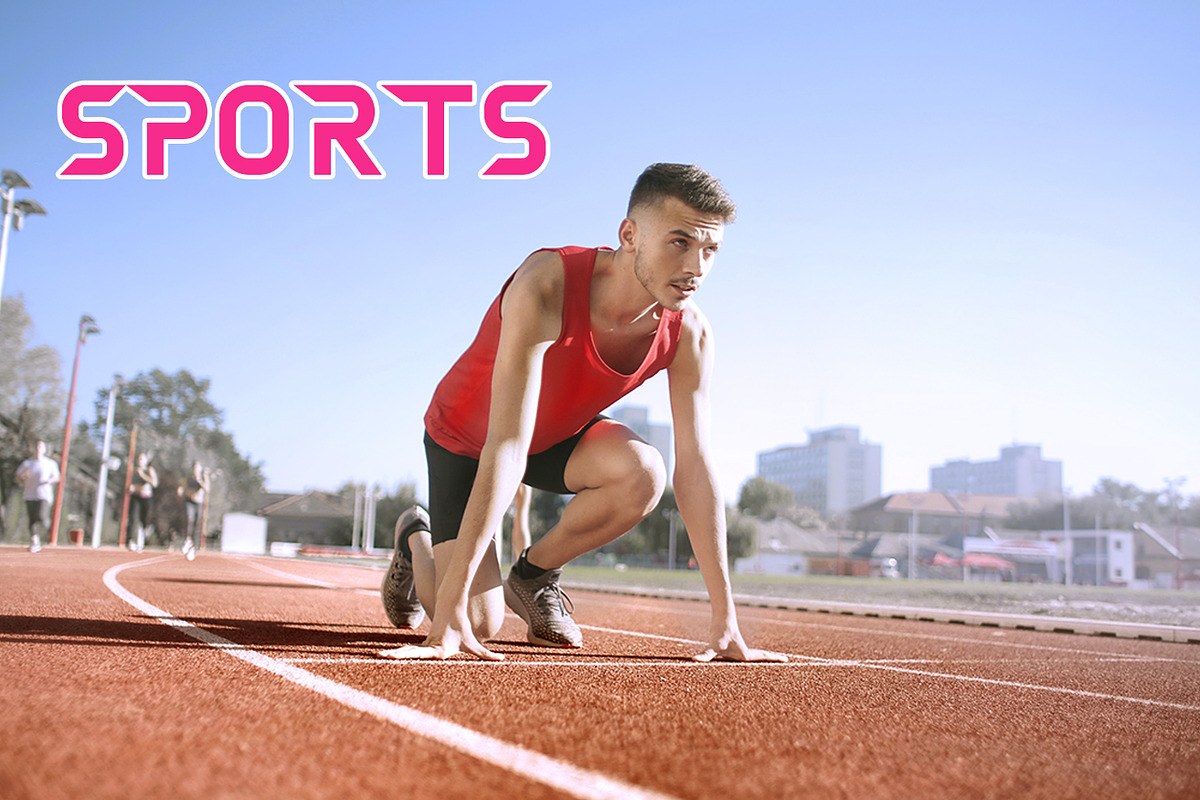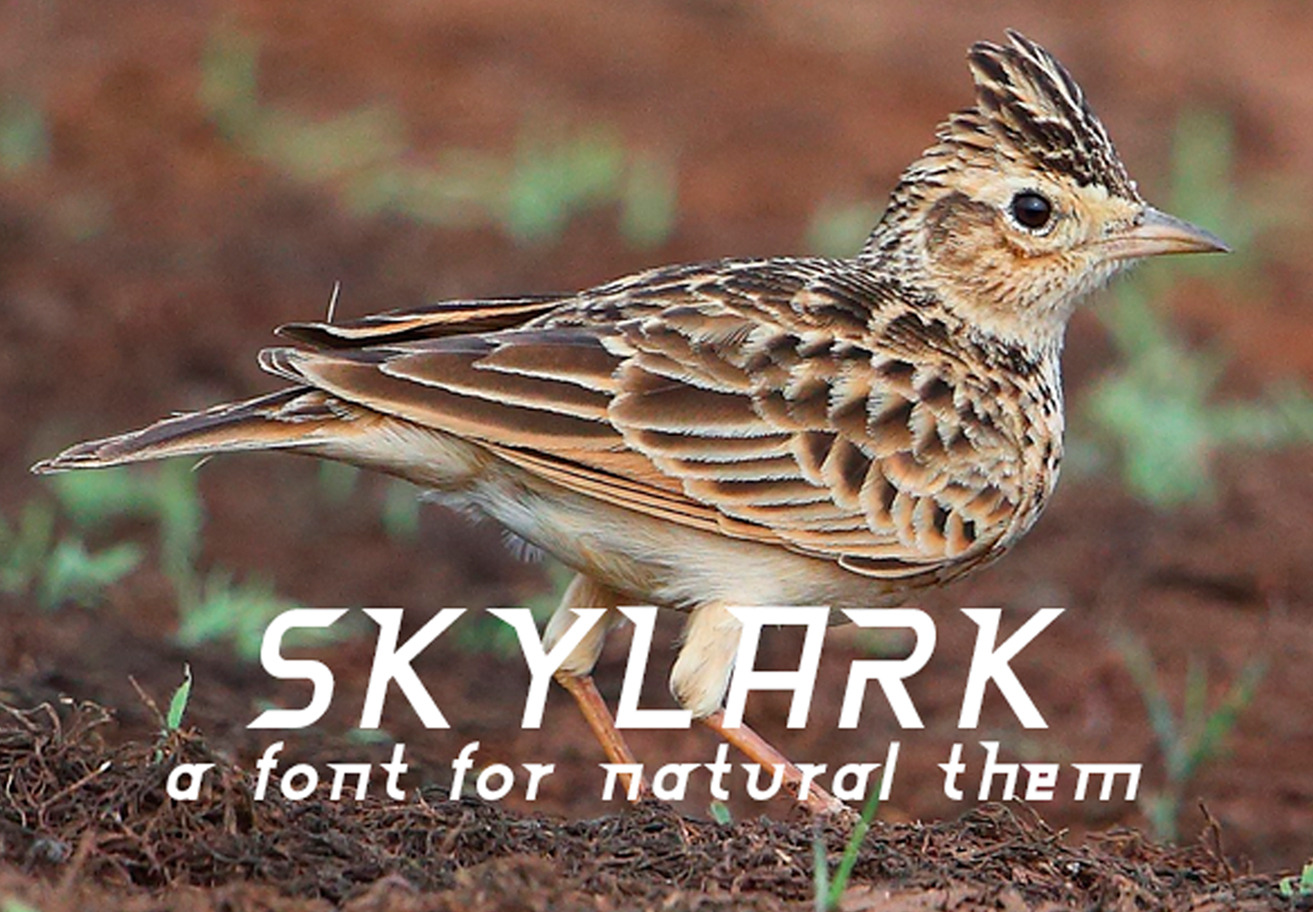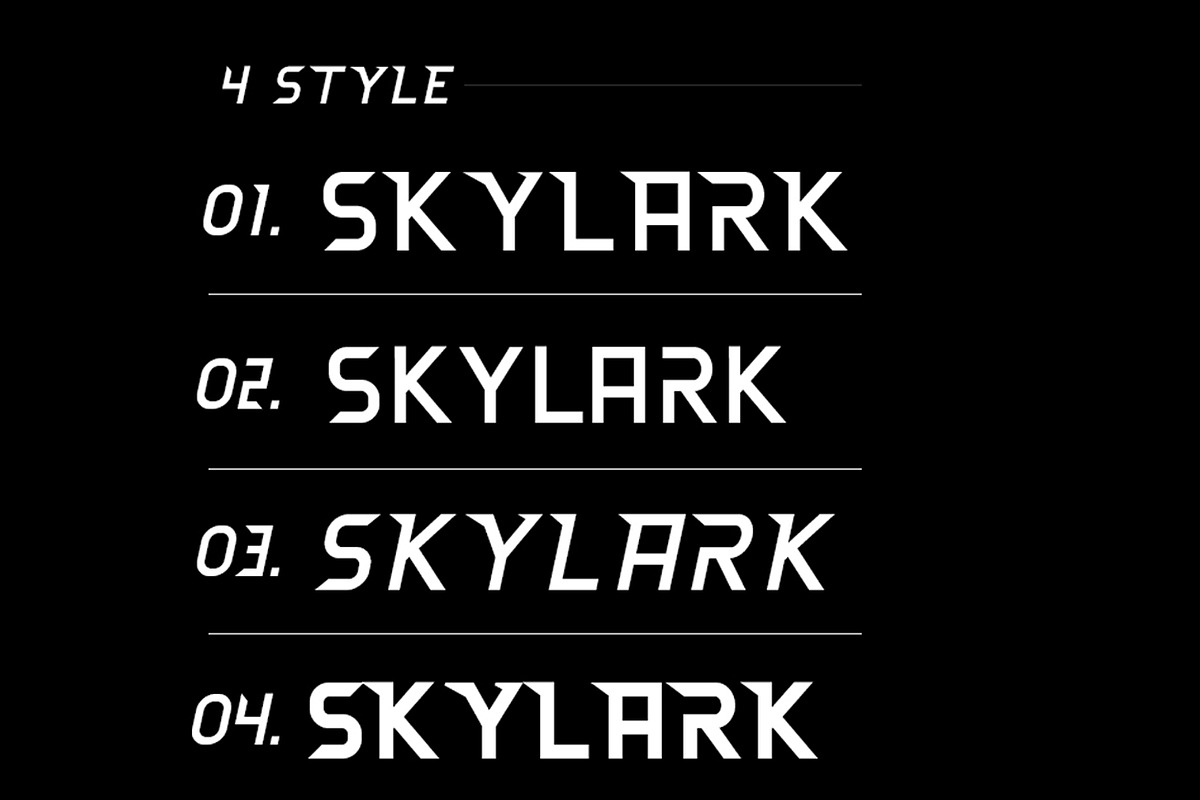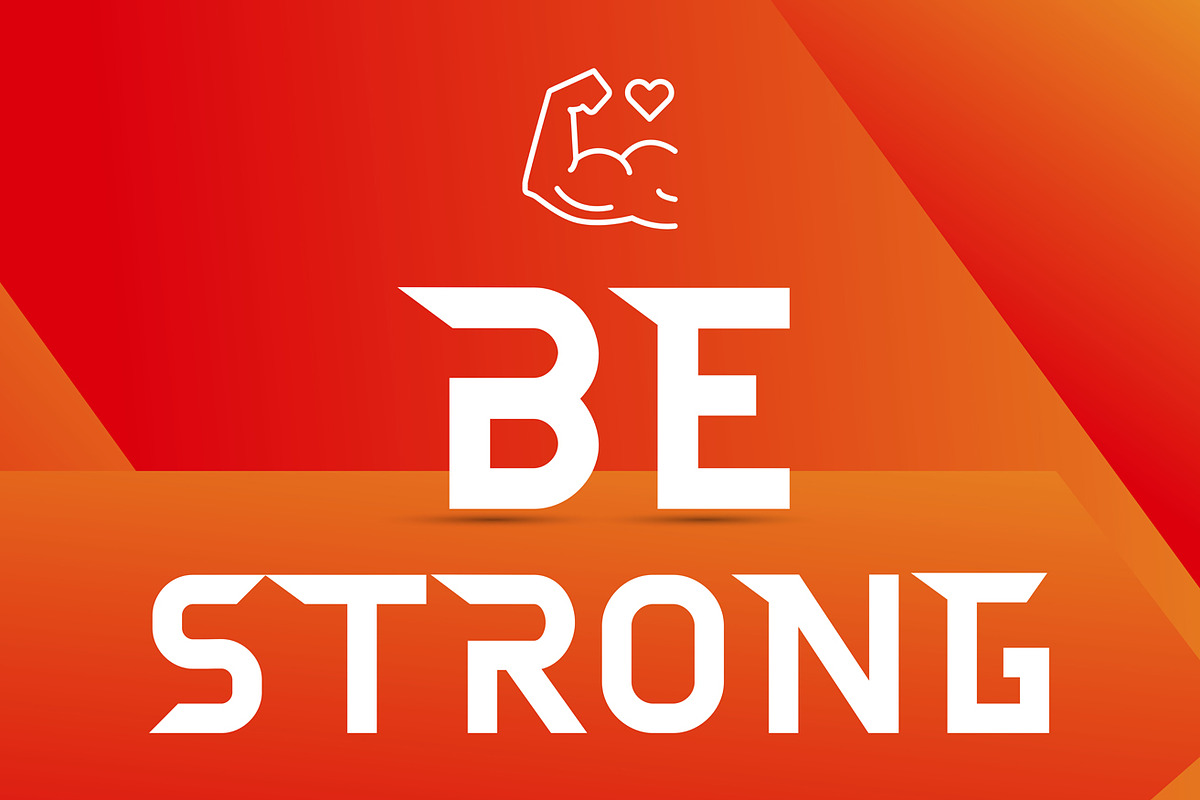
Skylark Font
" Skylark Font is a stylish Font. Available in Regular , flat, Bold , Italic , Font version with all special characters.
It’s useful for any Design project. card, e-card, Good for Logos & Headlines, Poster, Tag design, Newspaper & Magazine Ad Design and many more. True type and Open type font files